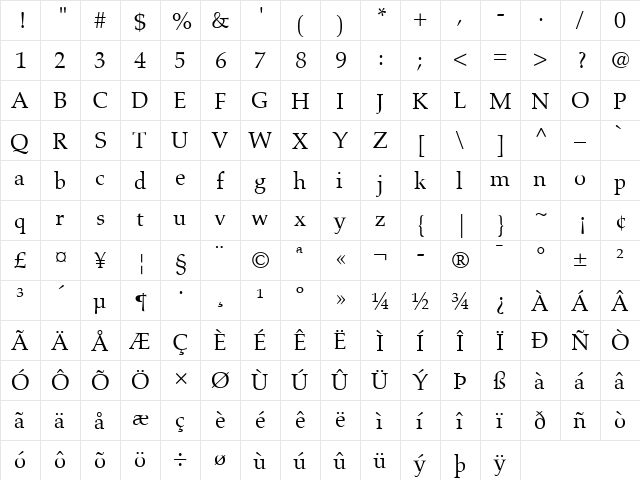
Aldus LT Roman Regular
Design Context for Aldus LT Roman Typeface
Aldus LT Roman is a composed and adaptable typeface that performs quietly and consistently across a wide range of design contexts. The delicate stroke weight brings airiness and refinement to layouts.